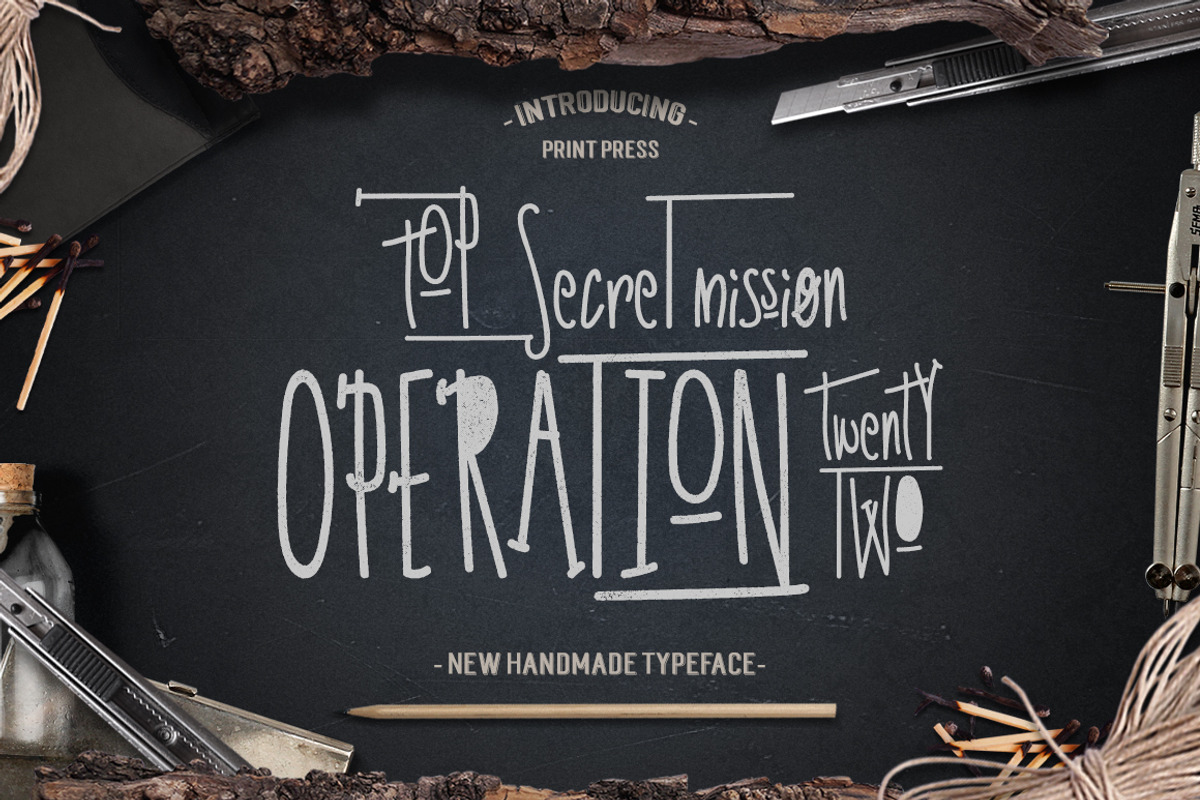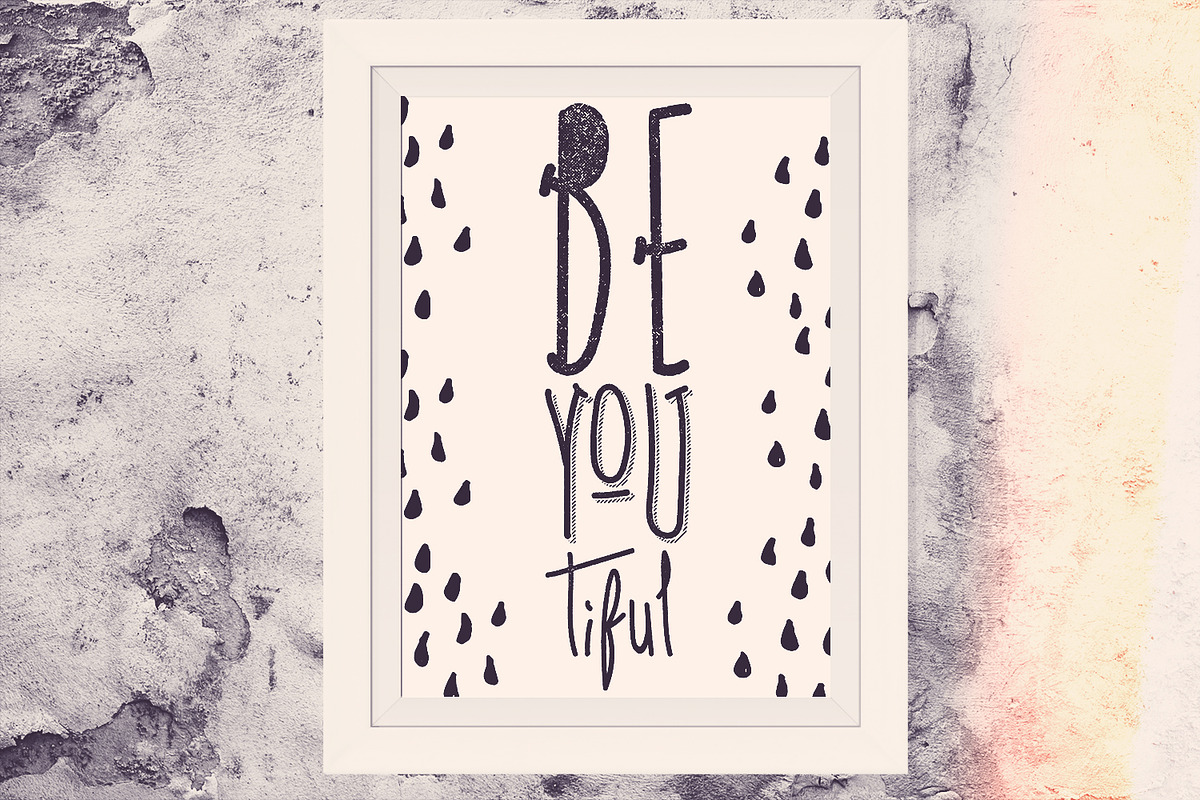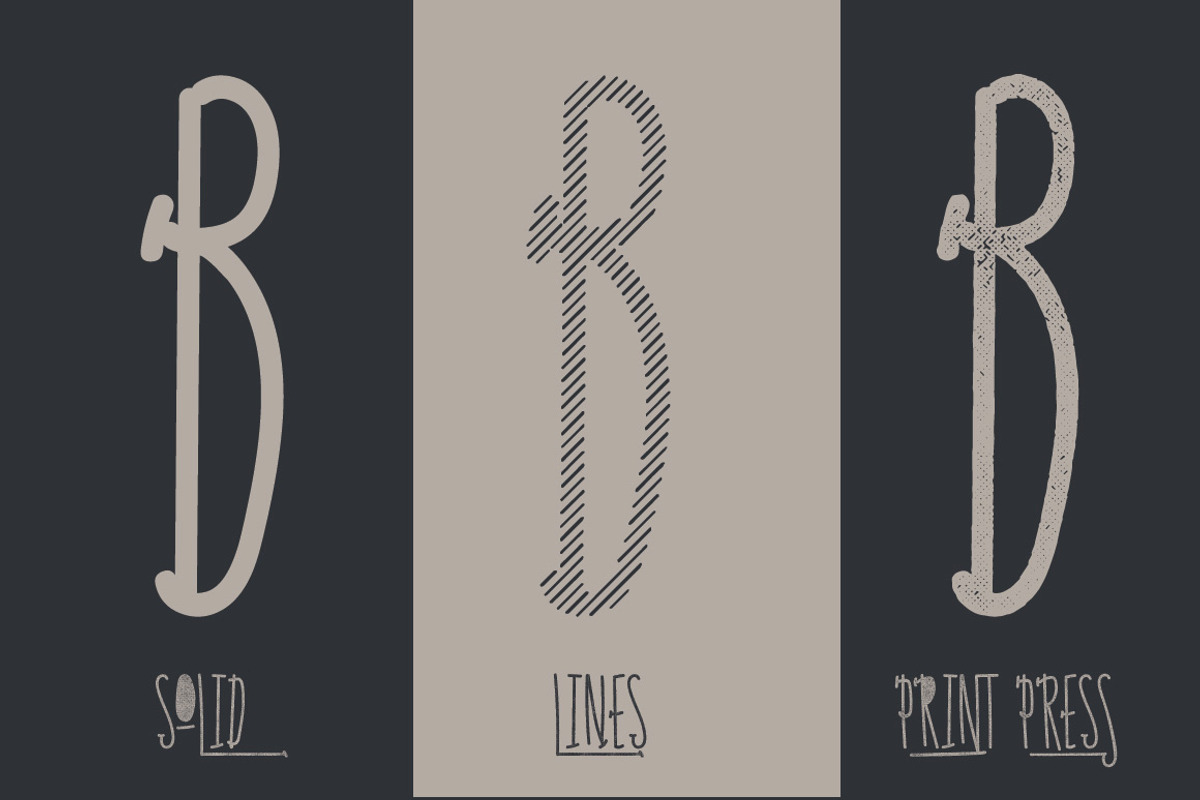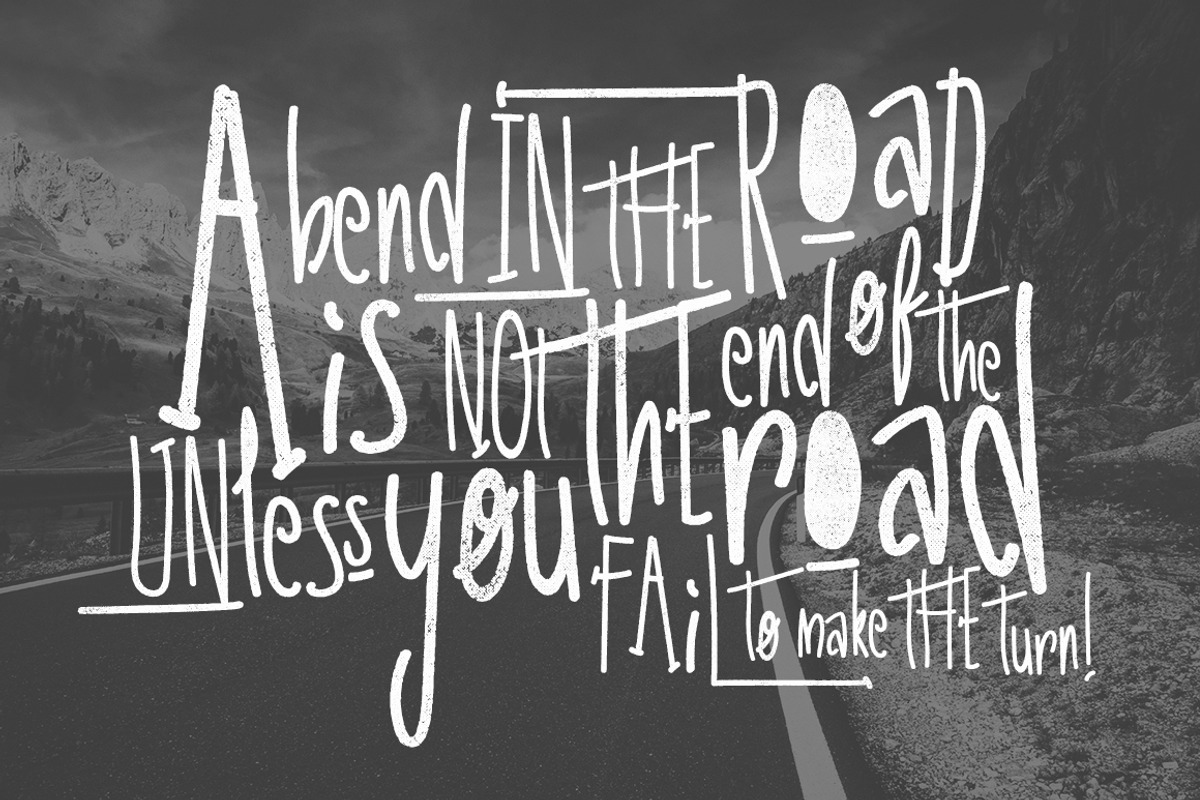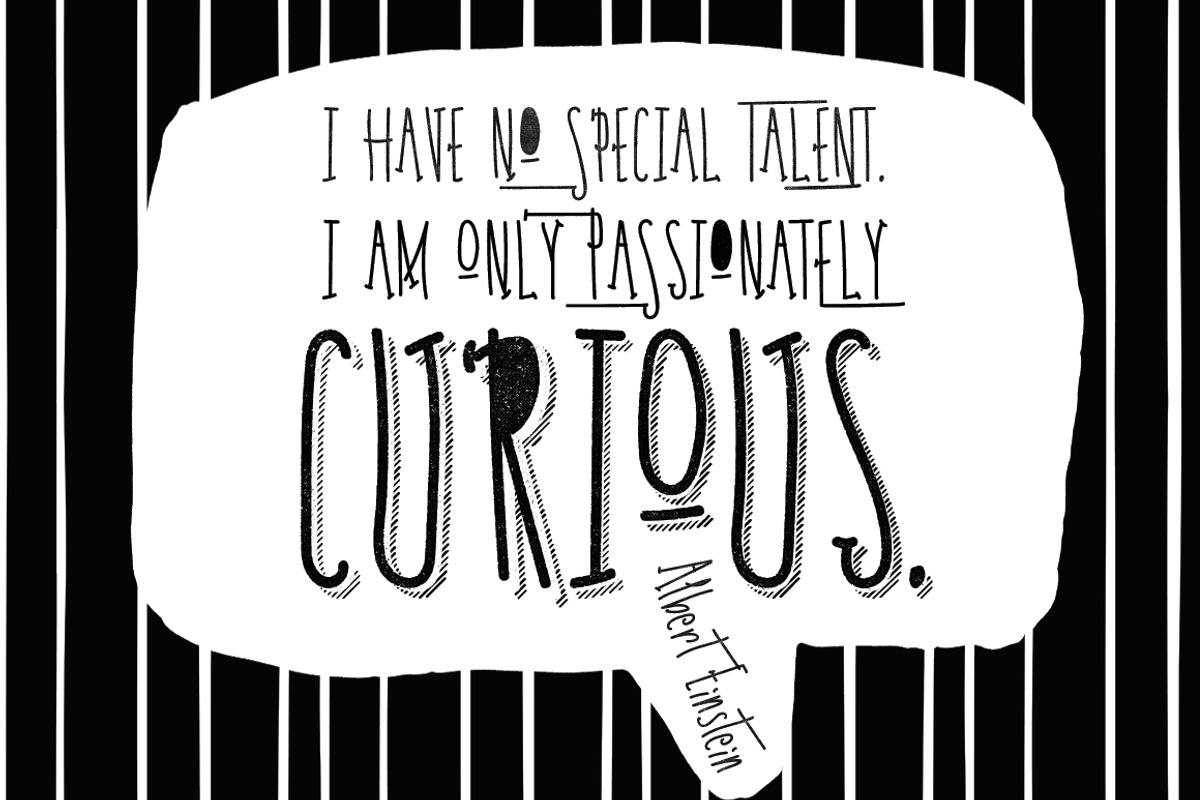
Operation 22 Typeface Font
Operation 22 Typeface Font by Creativeqube Design is a font selected for branding, posters, packaging, typography.
- Operation 22 has discretionary ligatures and stylistic alternates, so you can create an endless number of combinations.
Why Operation 22 Typeface Font is worth a look
Operation 22 Typeface Font by Creativeqube Design fits naturally into Branding, posters, packaging, typography.